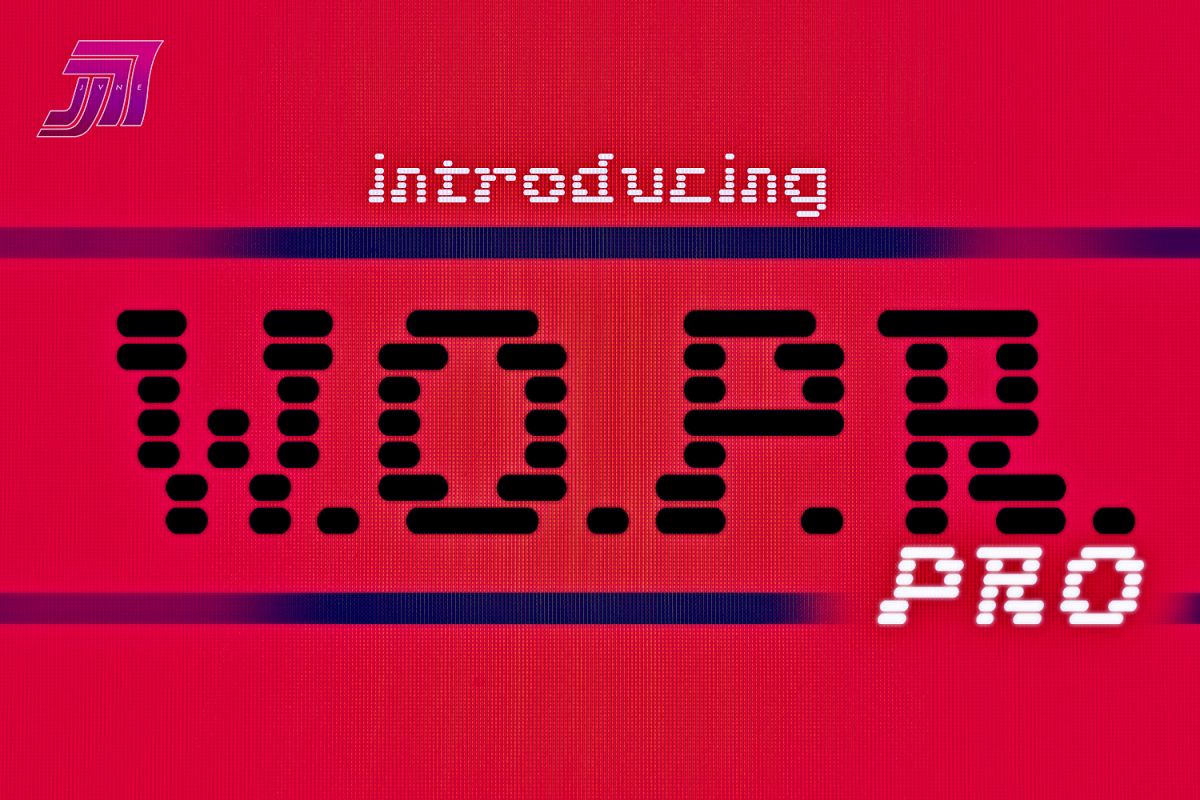
JVNE W.O.P.R. Pro
W.O.P.R. Pro, is my rendition of the typeface created for the titles of the cult "WarGames" movie from 1983.
It comes with 243 glyphes, full western latin language support, small caps & some alternates & ligatures.